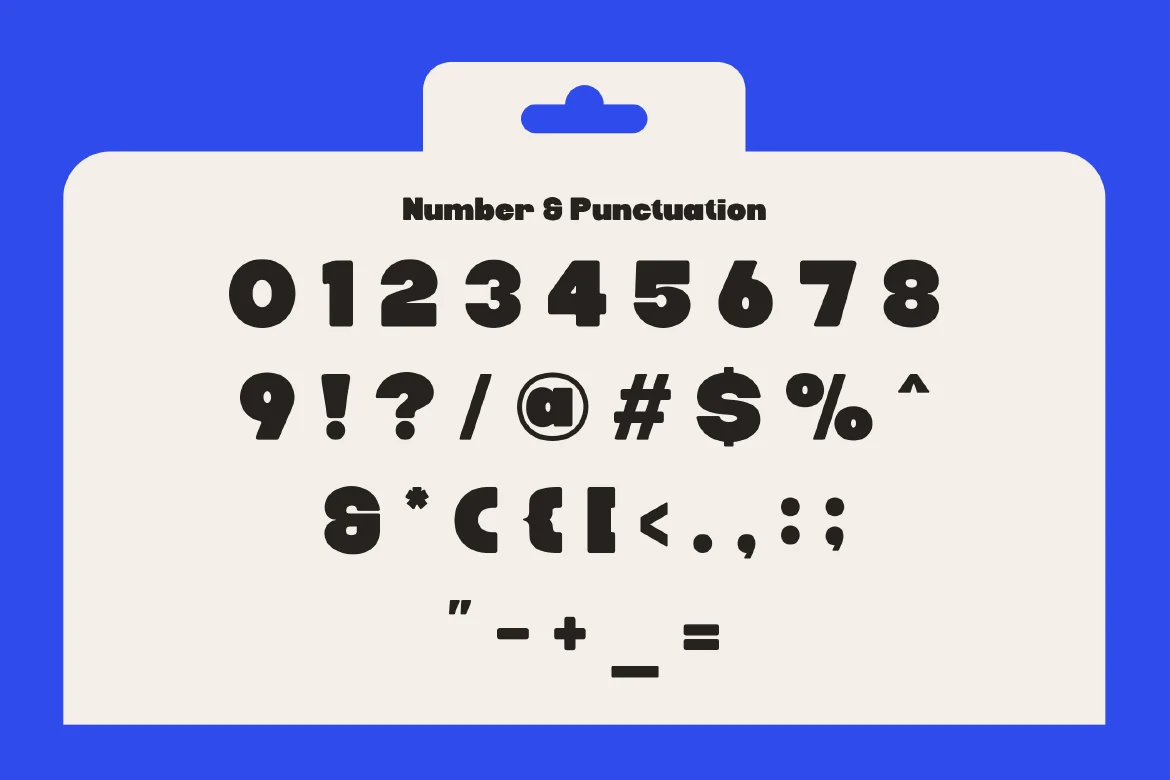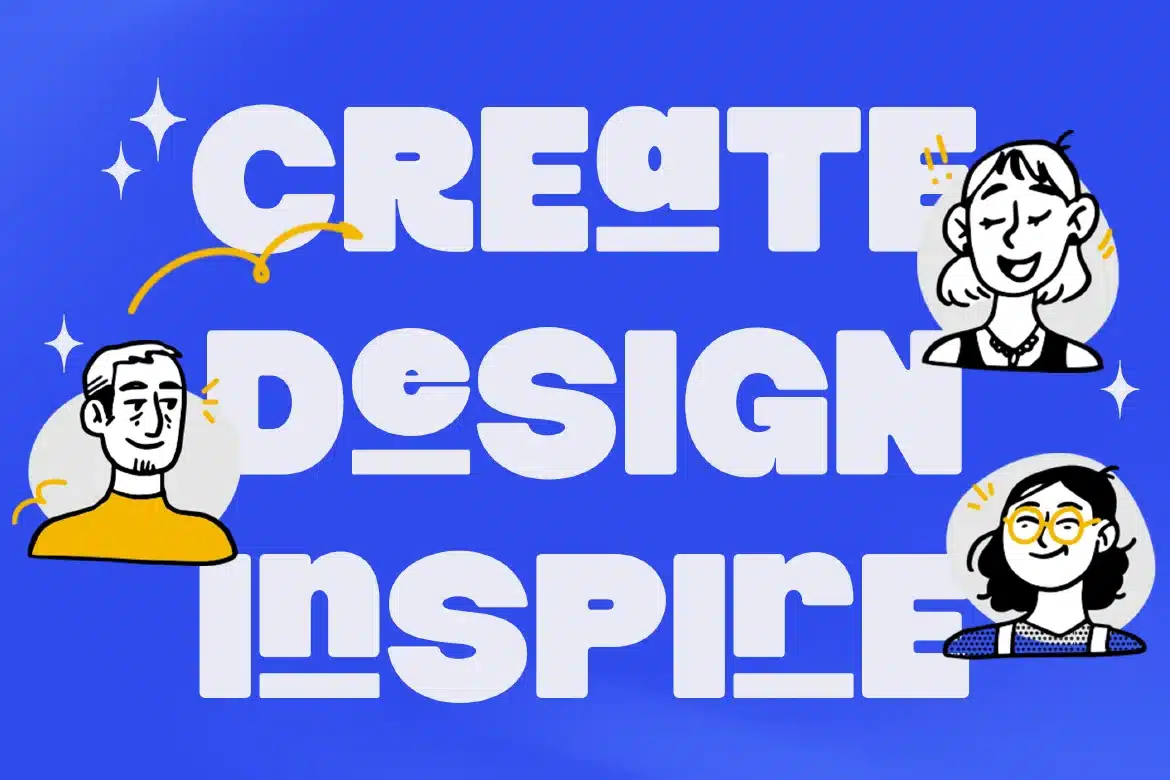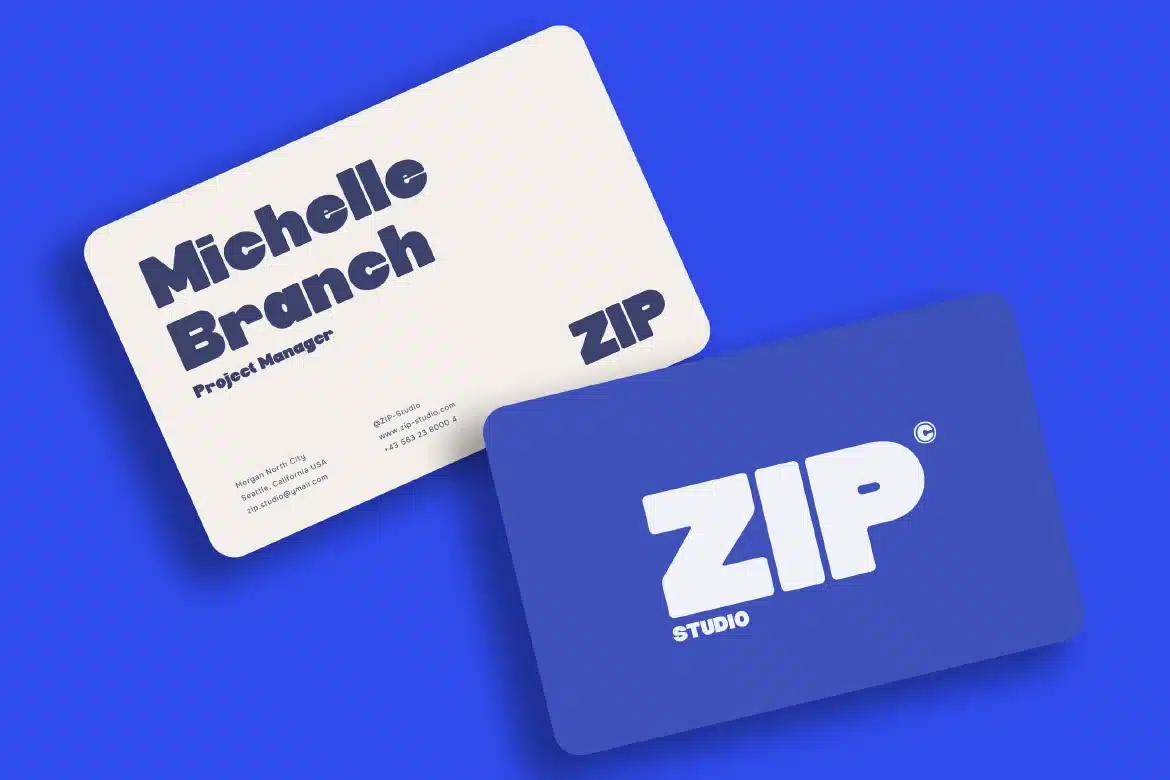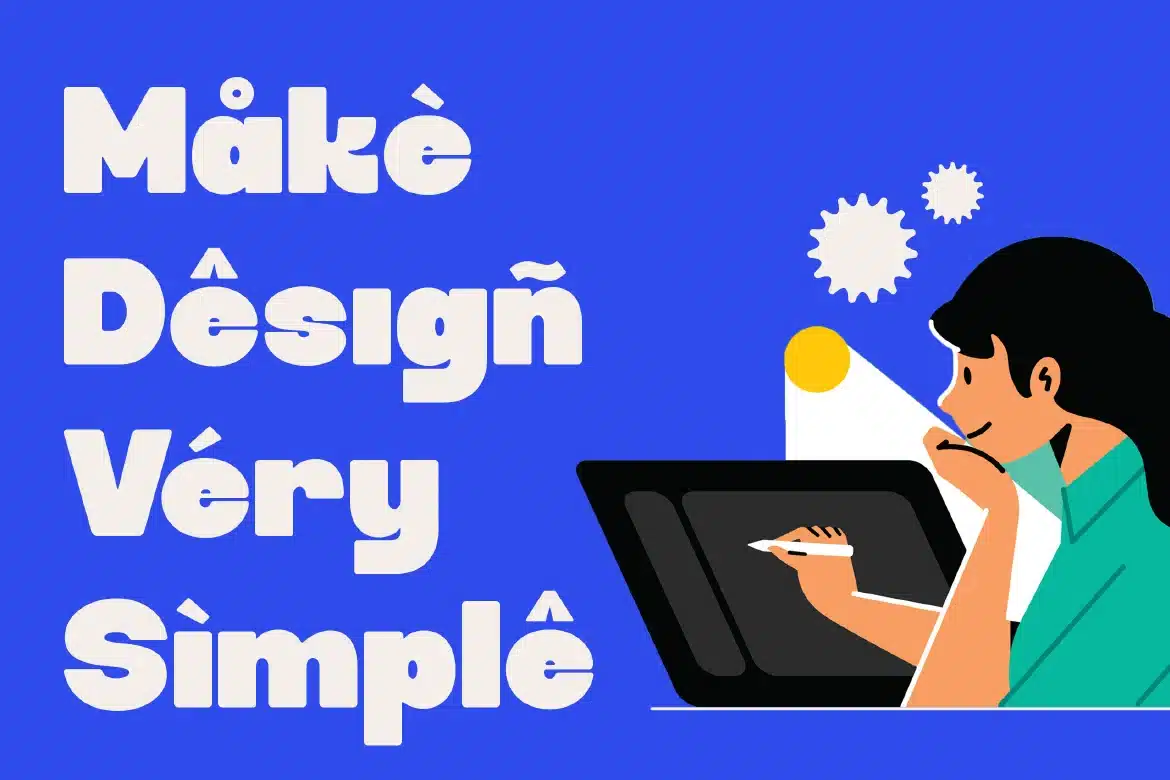
Bold Sans Display Font – Ziron
Bold Sans Display Font - Ziron
Ziron is a bold modern sans display font designed to make a strong and confident statement. With its solid structure, clean lines, and contemporary style, Ziron delivers a powerful visual impact while maintaining a fun, playful, and professional appearance. Its bold weight ensures high visibility, making it perfect for headlines and standout typography. At the same time, its modern construction keeps the design balanced and easy to read, allowing it to perform well across various creative applications.
Who Should Use Ziron?
Ziron is ideal for designers, brands, and creatives looking for a bold and modern display font. Itβs especially suited for projects that require clean, strong, and attention-grabbing typography.
Bold branding and logo design
Headlines and posters
Advertising and marketing materials
Social media graphics
Packaging and product design
Editorial layouts
Digital and web design
Modern typography projects